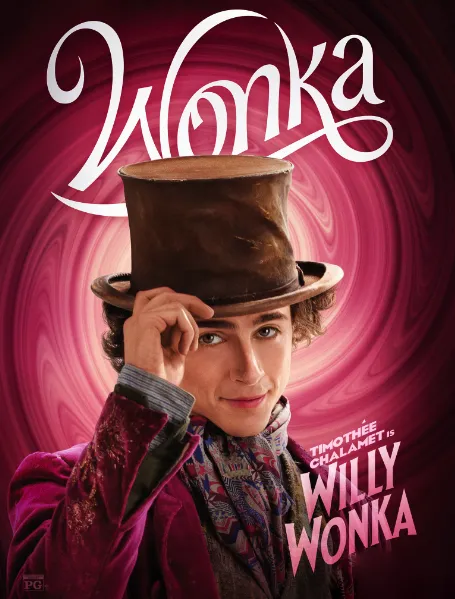
Wonka Font
The Wonka font is a custom font designed specifically for the 2023 musical fantasy film “Wonka” which explores the backstory of Willy Wonka the famous chocolatier and inventor from the novel Charlie and the Chocolate Factory by Roald Dahl. The first movie was Charlie and the Chocolate Factory released in 2005.
Wonka Fonts
There is no official font released for the Wonka movie logo. But We found some font that are fan-made or inspired. Like:
Wanker
Wankar Font
This is a fan-made font designed by FontGet. It look very similar to the Wonka 2023 movie logo.
Willy Wonka
Willy Wonka Font
This is another font that is inspired from the style of Willy Wonka.